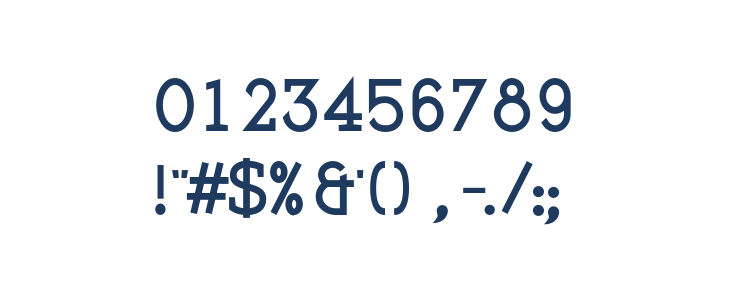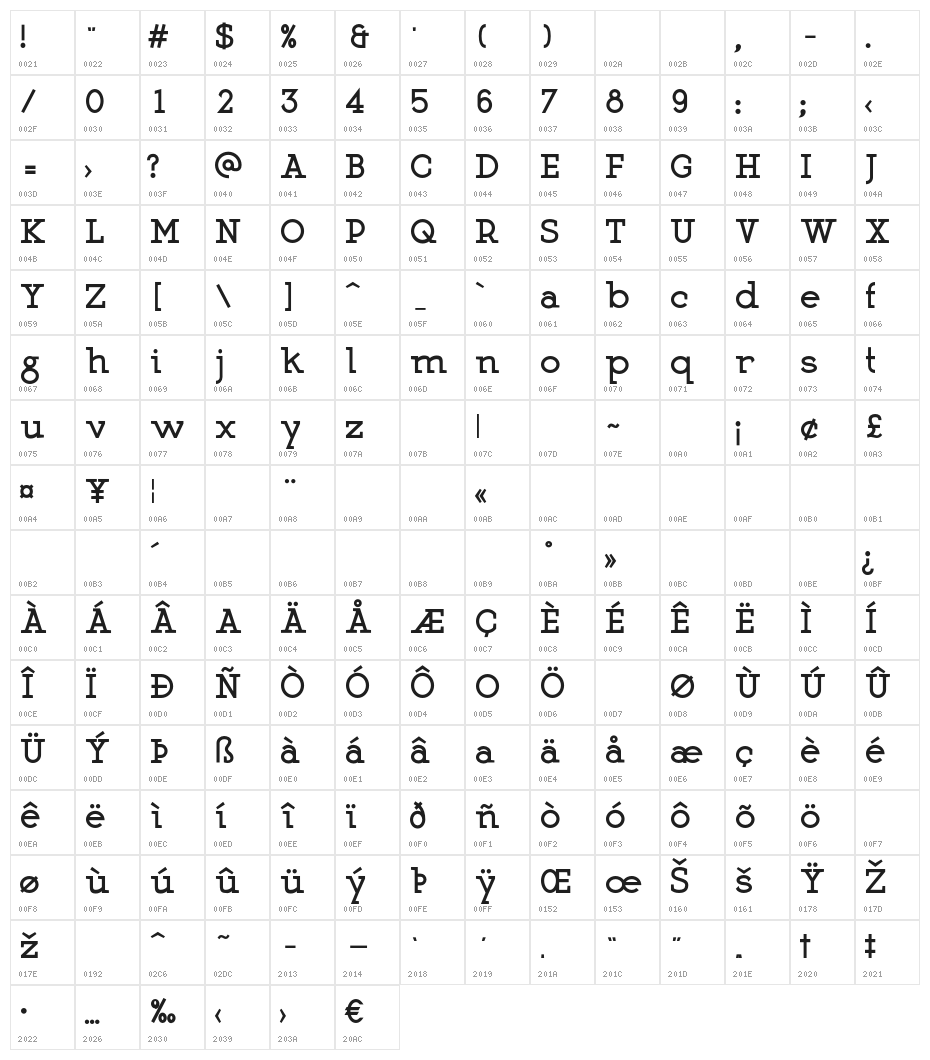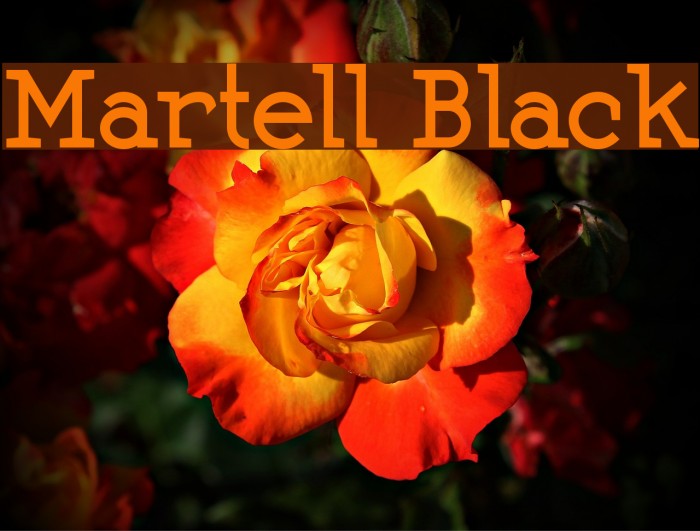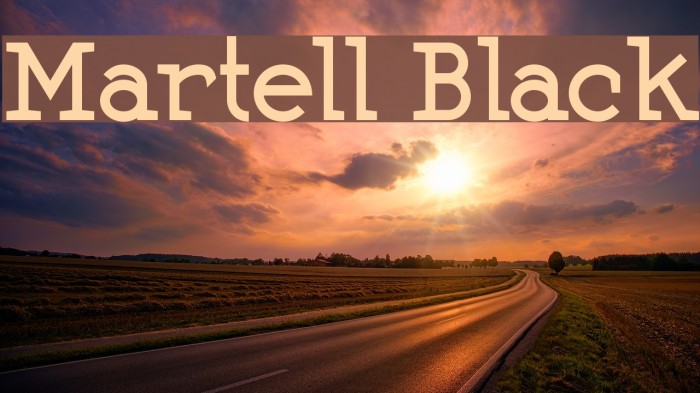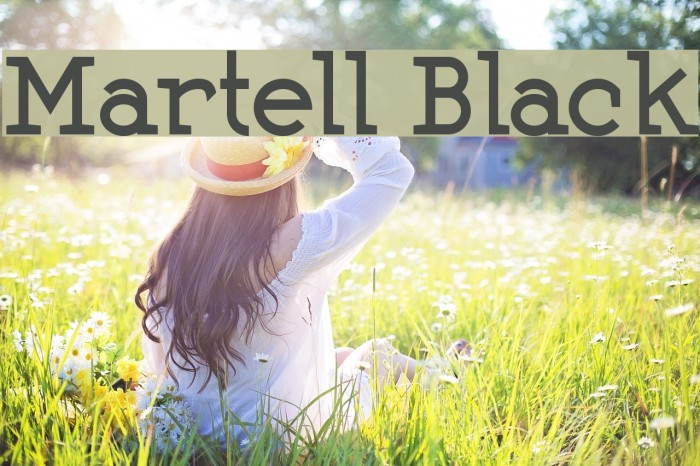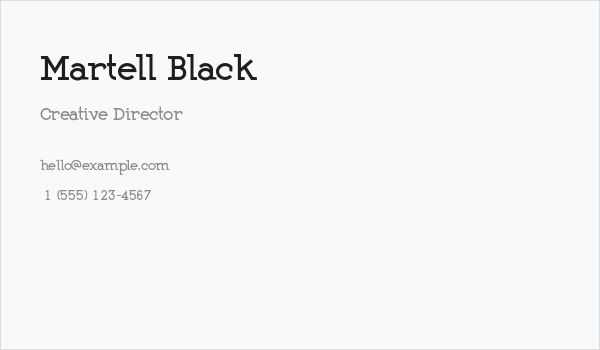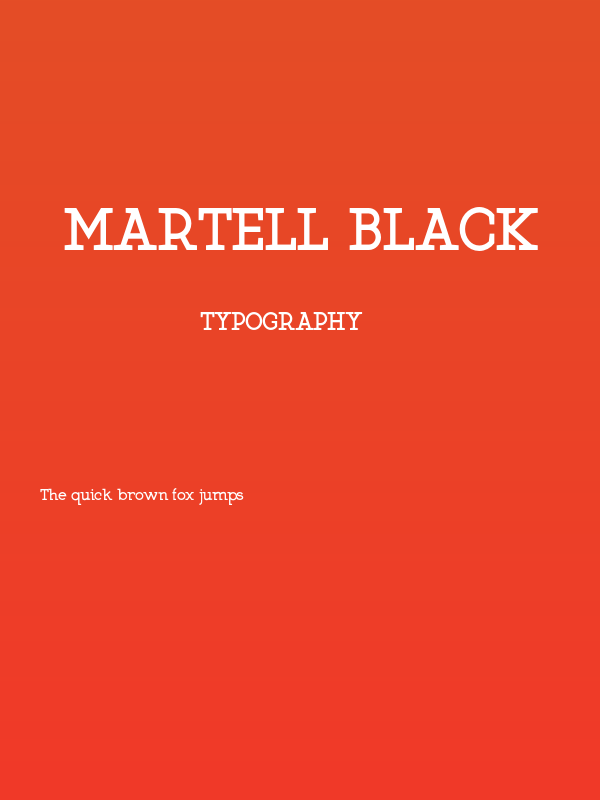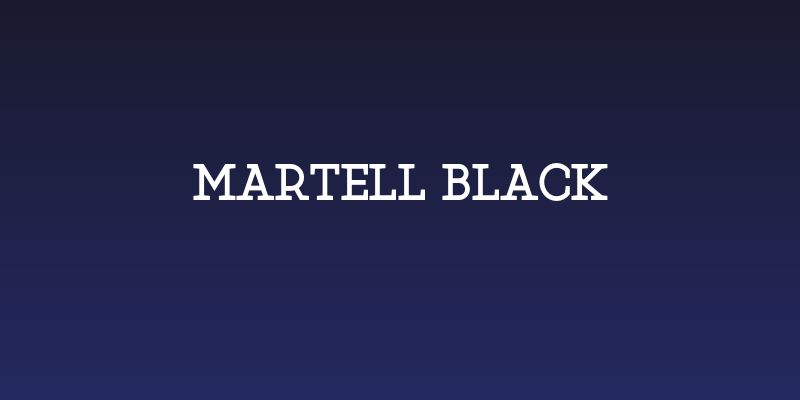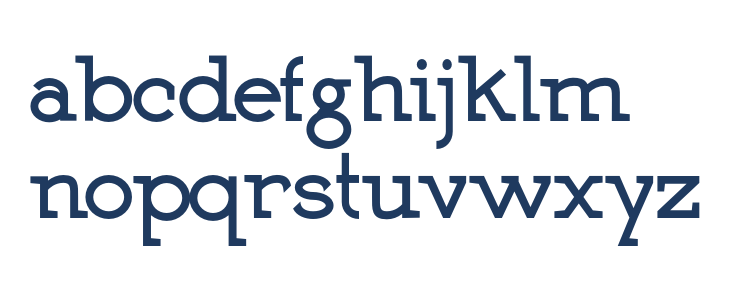
Martell Black Font
Martell Black Description
This font exhibits a bold and confident style with strong, thick strokes that convey a sense of authority and presence. The uppercase letters are particularly striking, with a consistent weight that makes them stand out. The lowercase letters maintain a harmonious balance, offering a smooth and rounded appearance that complements the boldness of the uppercase. The numerals are clear and easy to read, with a uniform thickness that ensures legibility. Special characters are well-integrated, matching the overall robust aesthetic. This font is versatile, suitable for projects that require a strong visual impact.